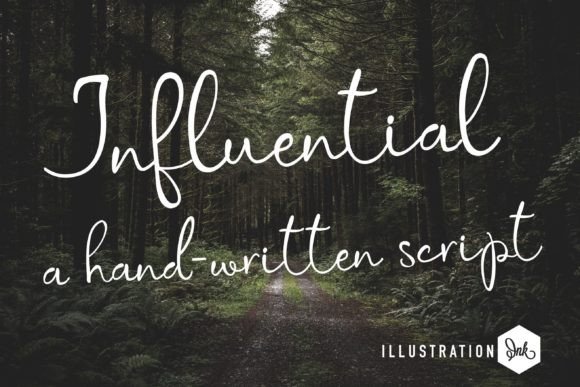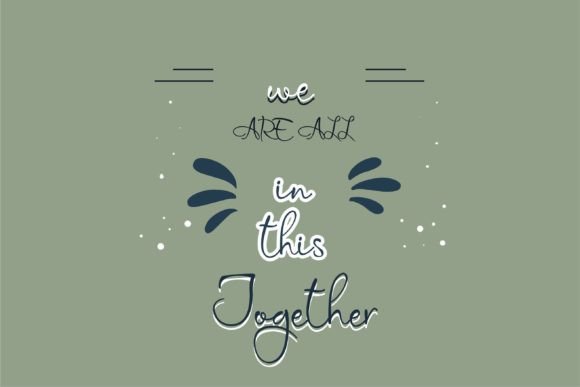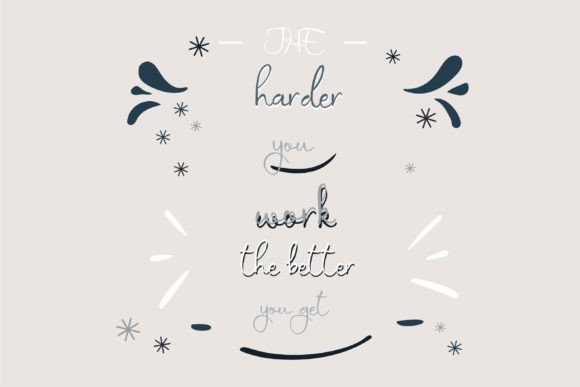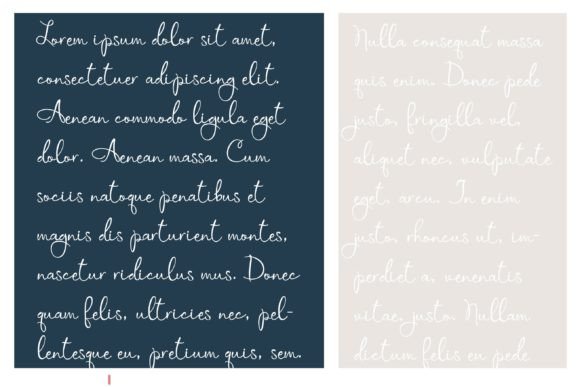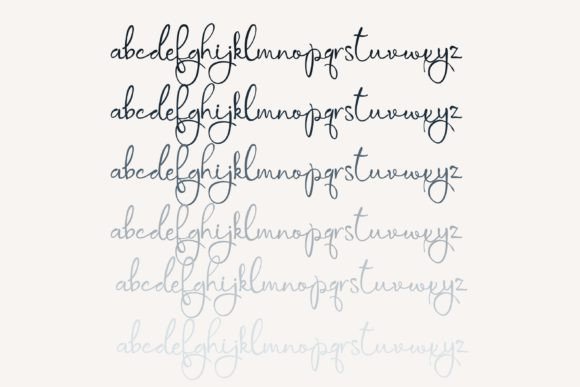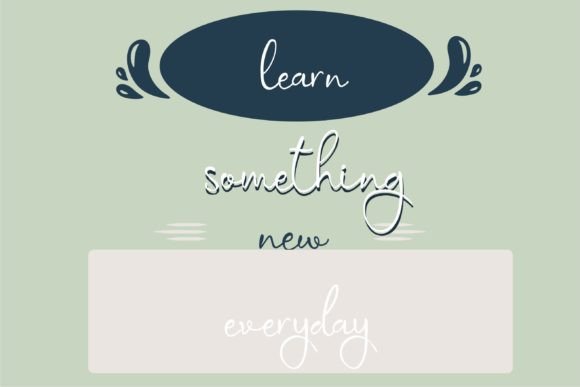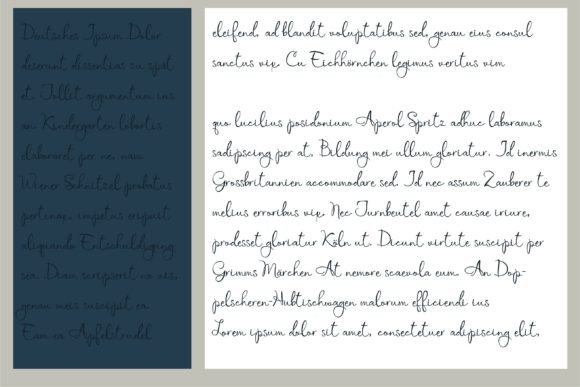
Influential Font
About Influential Font
“Influential” is a quirky handwritten font that leverages the authenticity and natural characteristics of hand lettering. Crafted with a handwritten touch, this font is well-suited for a variety of applications, including websites, SVG designs, home decor, branding, blogs, logos, invitations, and more. The hand-written cursive style of “Influential” features big loopy uppercase letters, adding a distinctive and playful element to the font.
The uniqueness of “Influential” makes it an excellent choice for projects that require a personalized and creative touch. Whether you’re working on digital designs or physical products, this font is designed to stand out and leave an impression.
Embrace the quirkiness of “Influential” to infuse a sense of fun and individuality into your projects. The big, loopy uppercase letters contribute to its playful and eye-catching nature, making it suitable for a range of creative endeavors. Let “Influential” be the font that adds a quirky and memorable twist to your designs, enhancing their visual appeal.